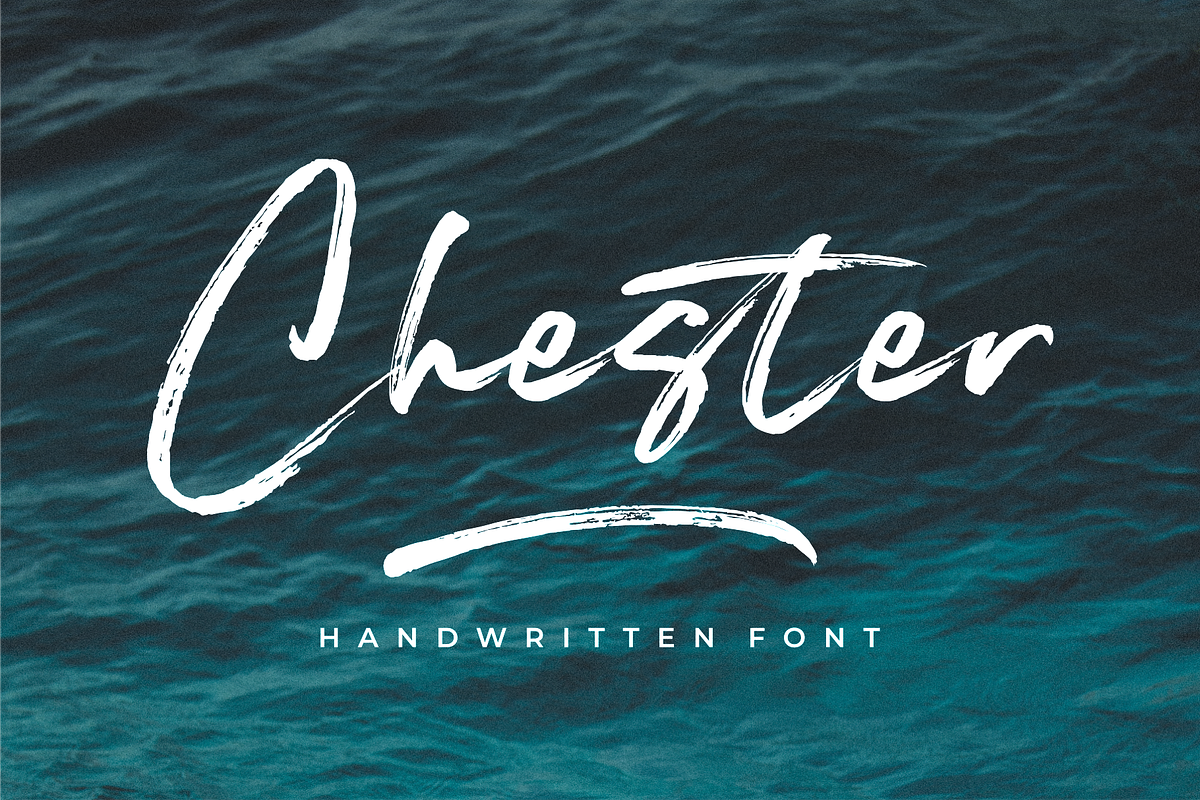
Chester – Handwritten Brush Font Free Download
Please note, you must purchase this font for commercial use. However, you can easily download Chester – Handwritten Brush Font Free Download for personal use and testing purposes. Chester – Handwritten Brush Font is a dynamic and expressive typeface that captures the raw beauty of brush lettering. Perfect for creative projects that need an authentic, handcrafted feel, this font works well for posters, invitations, quotes, branding, and more. Its bold strokes and casual style make it an excellent choice for projects that require a personal, artistic touch. Whether you're designing a logo or adding a handmade flair to your text, Chester – Handwritten Brush Font Free Download offers the versatility and charm needed to elevate your designs. Download Chester – Handwritten Brush Font Free Download today and experience its artistic potential before opting for a commercial license.